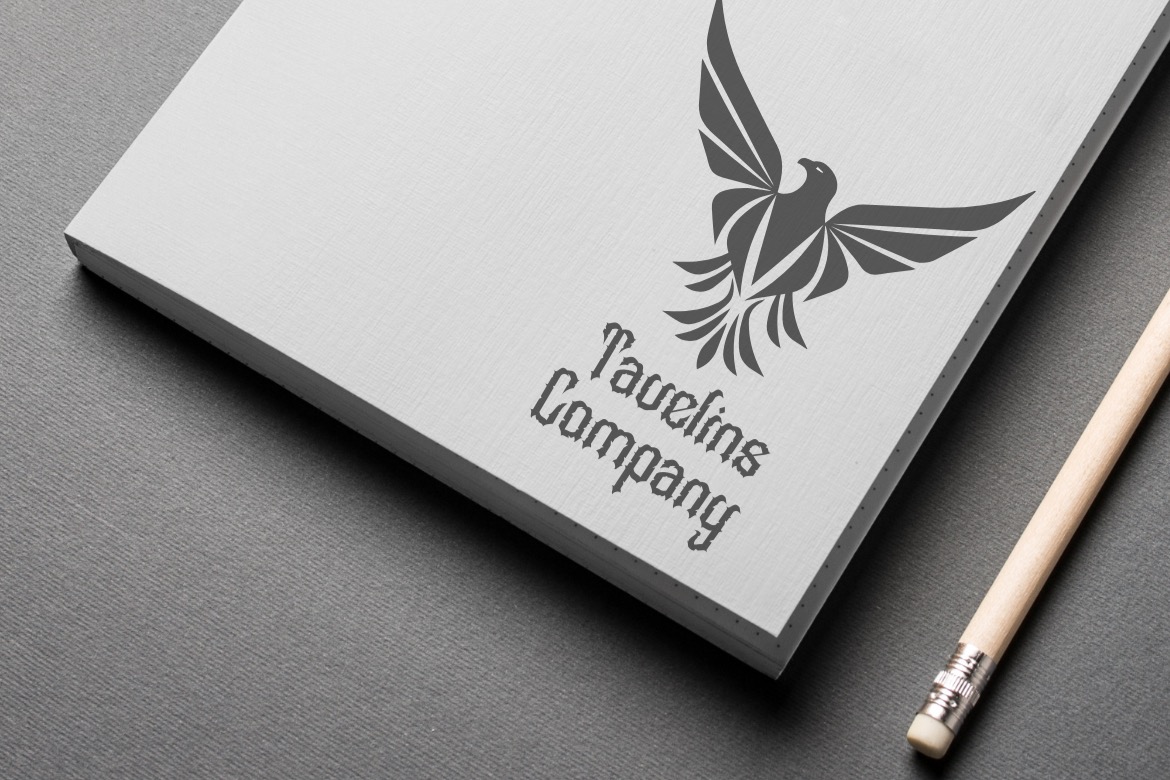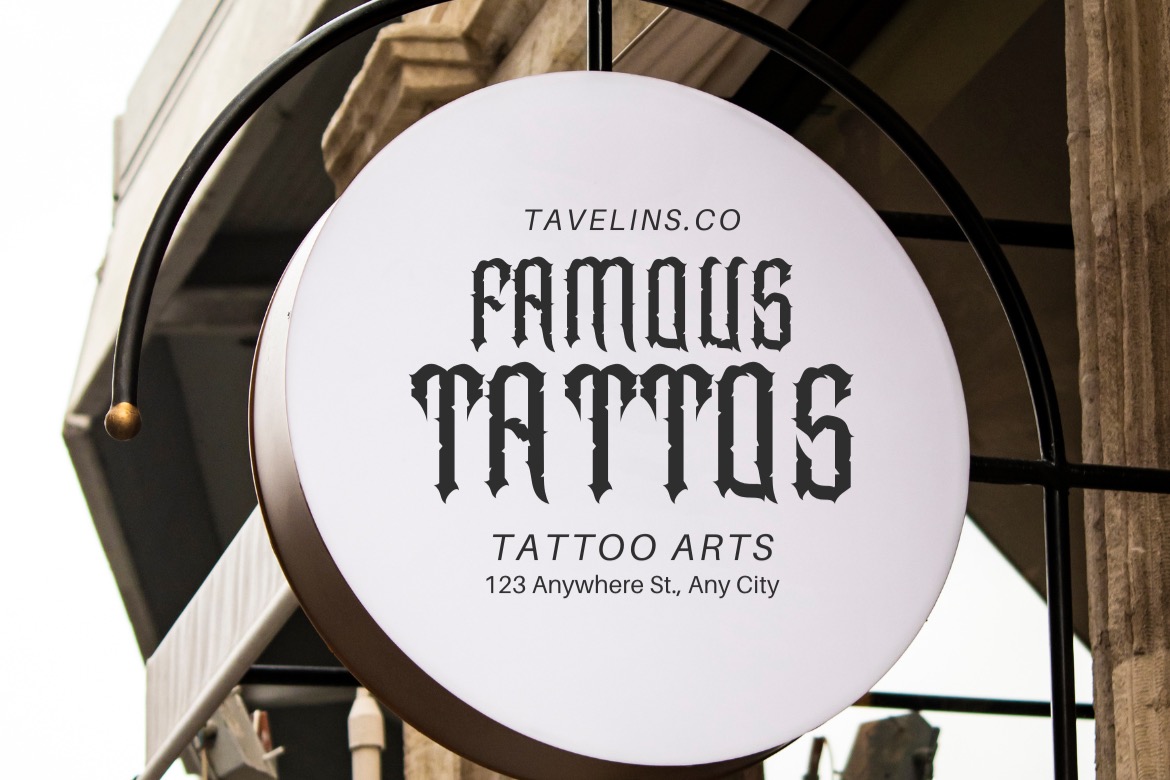
Tavelins is the kind of blackletter that immediately sets a mood. It leans into a bold Fraktur character—sharp cuts, heavy weight, and a classic gothic rhythm—so even a single word can feel like a title card: dramatic, premium, and a little rebellious.
It works best when you want the lettering to lead the design: posters, album artwork, packaging, brand marks, event promos, and big headline moments. The strong angles give it a confident silhouette from a distance, and the alternates + ligatures help the typography feel more custom (so it doesn’t look like the same shapes repeated over and over).
Where it shines
Heritage / gothic / street / rebellious vibes: tattoo studios, barbershops, pomade brands, streetwear drops, metal & rock events, Halloween campaigns, horror posters, and vintage-inspired promos.
“Limited edition” aesthetics—bold, tight, and attention-grabbing without needing extra decoration.
Color + styling suggestions
Tavelins loves contrast: white on black or deep navy, black on ivory, or metallic gold/bronze on dark backgrounds for a royal-gothic feel. If you want extra punch, add subtle texture (paper grain, ink, metal) and keep outlines/shadows simple so the details stay crisp. For supporting text, pair it with a clean sans-serif to keep the overall layout modern and readable.
Readability tips
Use it mainly for short phrases (around 1–6 words). Keep body text in a simpler font.
Give it a little tracking—especially in ALL CAPS—so the forms don’t feel cramped.
Avoid busy backgrounds behind the letters; use a solid overlay or stronger contrast.
Go big: blackletter details look best at headline sizes.